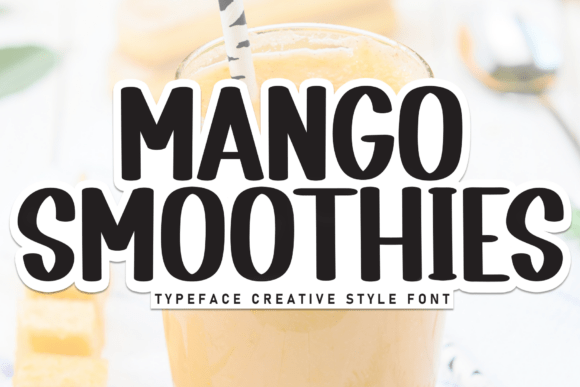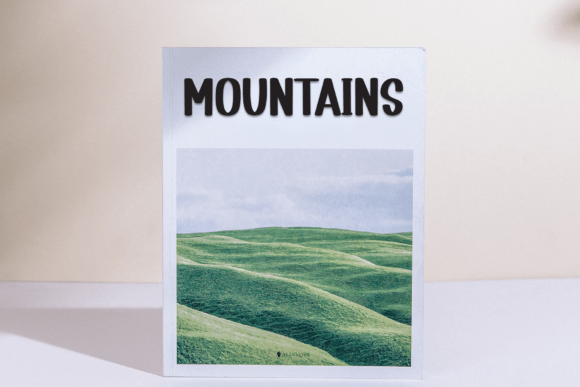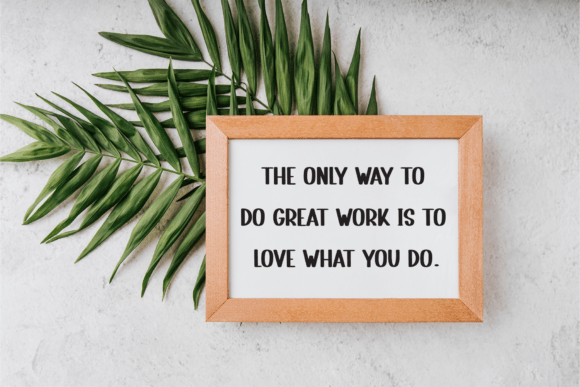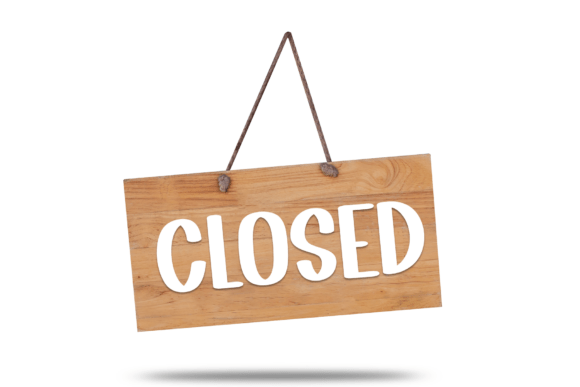
Mango Smoothies Font
About the Mango Smoothies Font
Presenting Mango Smoothies Font, a unique and stylish typeface that will make your work stand out. Mango Smoothies is a casual and neat display font that radiates a fresh, friendly vibe. With clean lines and a relaxed structure, it’s perfect for packaging, posters, and social media graphics. The approachable design adds charm and clarity to projects while maintaining a polished appearance.
Its friendly, approachable nature makes it ideal for projects needing a casual yet sophisticated feel, such as branding for cafes, juice bars, or children’s products. It also excels in short-form content like headlines, logos, and social media posts. However, its display-oriented design isn’t suited for body text or lengthy paragraphs; readability suffers at smaller sizes.
Mango Smoothies pairs well with clean sans-serif fonts like Open Sans or Lato for a balanced contrast, maintaining a modern feel. For a warmer aesthetic, consider pairing it with a serif like Playfair Display or Merriweather. Avoid pairing it with overly decorative or highly stylized fonts, which might clash with its relaxed, casual style.
The font’s core personality is best described as friendly and approachable, yet polished and professional. It conveys a sense of approachability and trustworthiness without sacrificing a touch of sophistication.
Mango Smoothies Font Usage Examples
Mango Smoothies Font Example